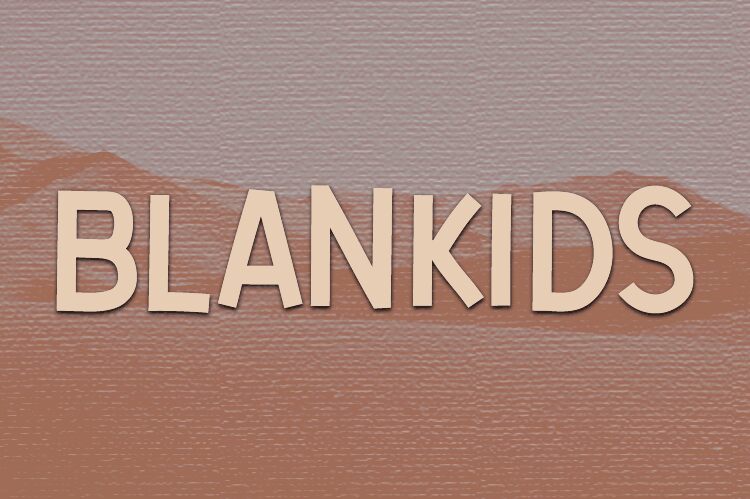
Blankids font family by Hanna Bie contains 2 font styles with a clean cartoon style. This font family is more geometric-based with modern visual aspects suitable for contemporary applications. Another interesting aspect of this font is its clear readability. Its strong presence and edgy curves make up for an interesting start to any typography project.
Use this font in branding, product packaging, posters, app design, headers, and even body text. It was designed in a way to have a versatile use, which makes it an excellent option for a wide variety of personal projects.